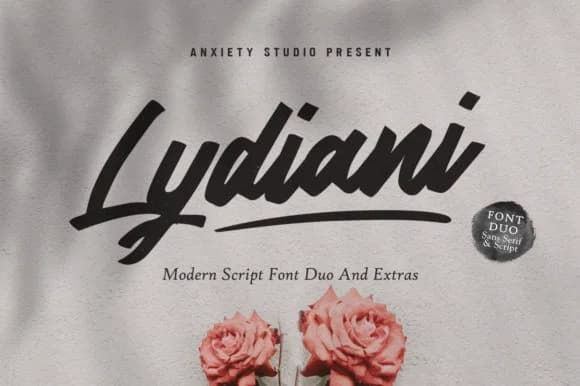
Lydiani Duo Font by lickermelody is a flowing script paired with a clean sans serif, giving you two distinct personalities in one download. The script carries that hand-lettered charm you see on luxury packaging and high-end wedding invitations, while its companion sans serif handles the supporting text without competing for attention. This pairing works especially well for boutique product branding, where you need elegance without fussiness, or for wedding stationery suites where script headers meet body-copy clarity. Greeting card designs also benefit from this split, letting the script shine on the front while the sans serif keeps the inside message readable.
The combination sidesteps a common design problem: using one decorative font for everything gets exhausting fast, and mixing random fonts often feels chaotic. Lydiani solves that by giving you a matched set built on compatible letterforms and rhythm. Design work like Etsy shop branding, hand-lettered poster layouts with supporting text, and boutique restaurant menus all benefit when both styles speak the same visual language, making the layering feel intentional rather than accidental. The font includes multiple swash alternates and extensive language coverage, so international projects and stylistic variations are covered. Get Lydiani Duo Font on Creative Fabrica and you'll have both styles ready to work together on your next project.
- Elegant, Flowing, Lydiani Script
Lydiani Duo Font is a script font that shines as a display or heading face. Pair it with a clean sans-serif or serif font for body text β the contrast creates a clear hierarchy while the two styles stay balanced and easy to read.